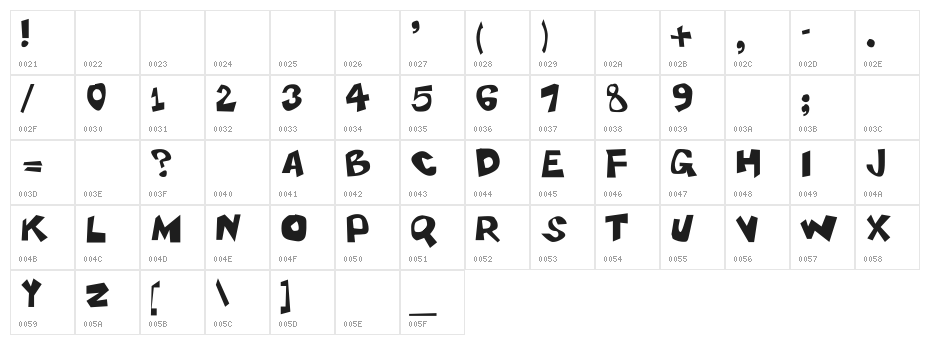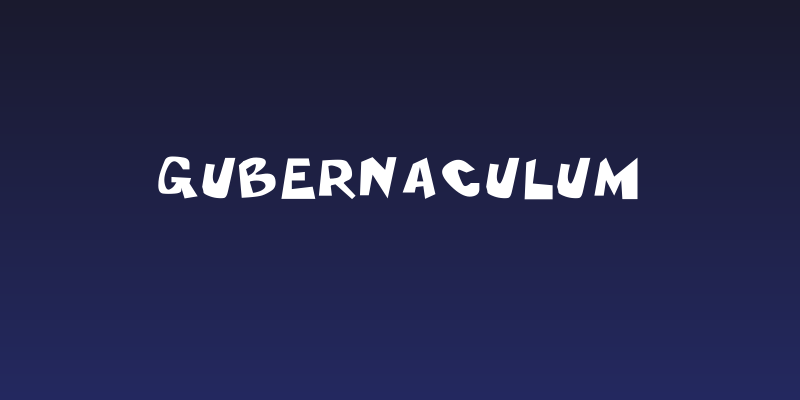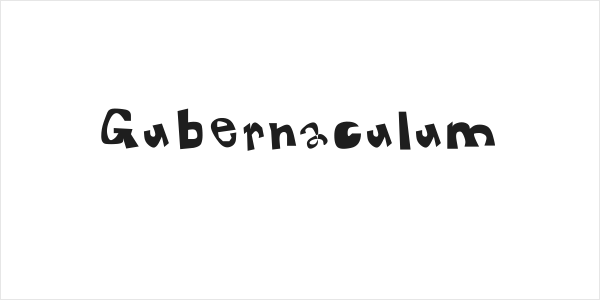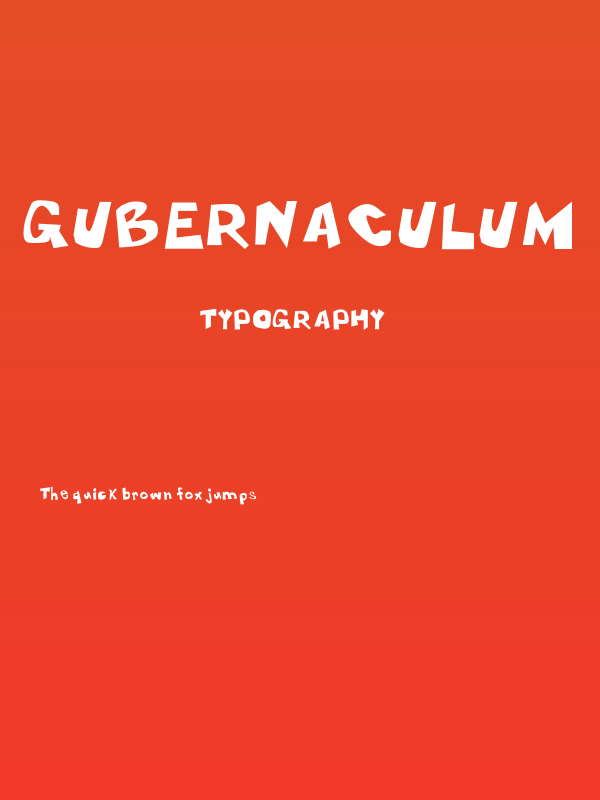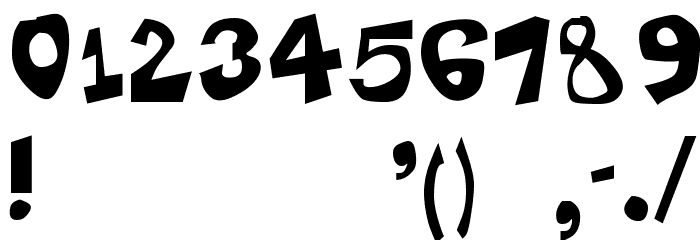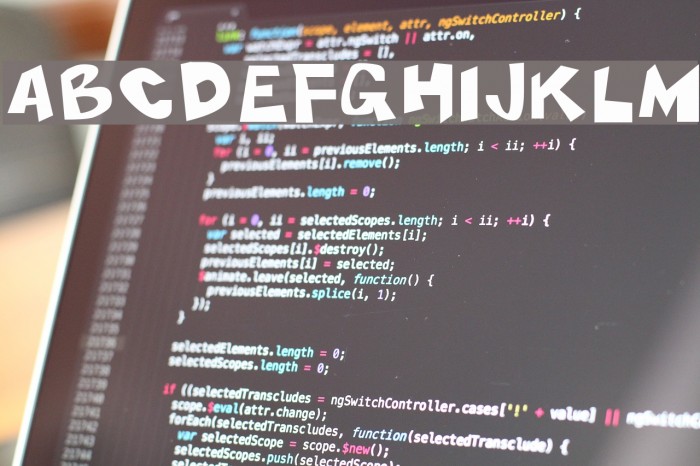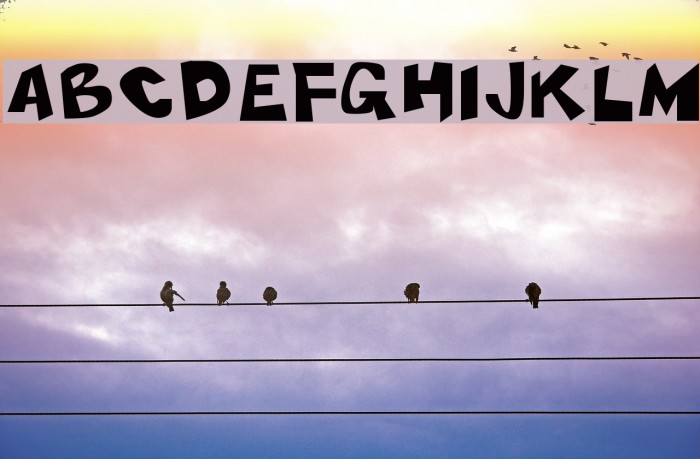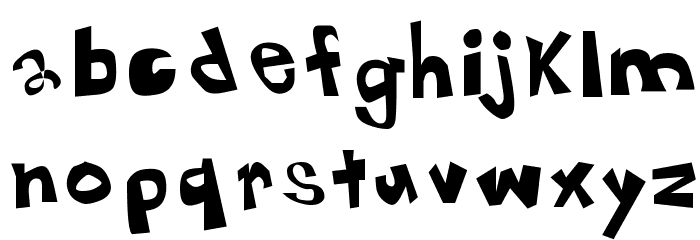
Gubernaculum Font
Gubernaculum Description
This font features a playful and quirky design with irregular shapes and varying angles, giving it a dynamic and energetic appearance. The uppercase and lowercase letters exhibit a bold, cartoonish style, with exaggerated curves and angles that create a sense of movement. The numbers and special characters maintain this whimsical aesthetic, making them stand out with their unique forms. The overall impression is one of fun and creativity, suitable for projects that aim to capture attention and convey a lively, informal tone.
GUBERNACULUM UPPERCASE
GUBERNACULUM LOWERCASE
GUBERNACULUM OTHER CHARS
| Proposed Projects | Ideal for children's books, comic strips, playful branding, party invitations, and creative posters. |